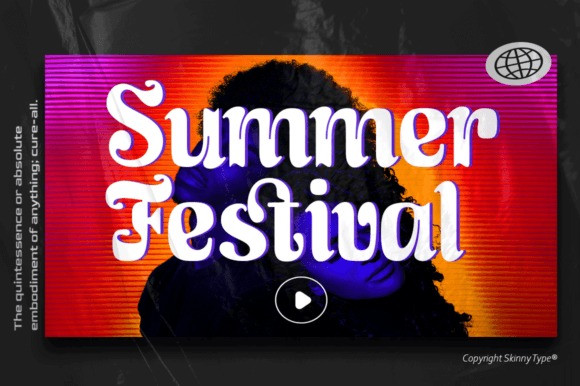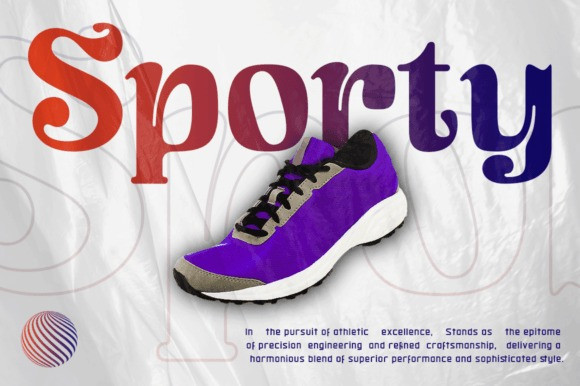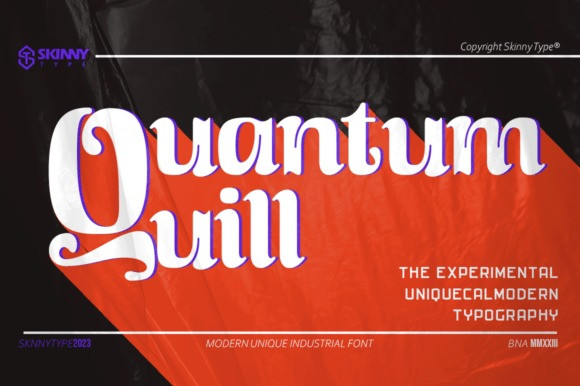
Quantum Quill Font
Quantum Quill Font is an elegant and bold serif font. Fall in love with its incredibly versatile style and use it to create gorgeous wedding invitations, beautiful stationary art, eye-catching social media posts, and much more!